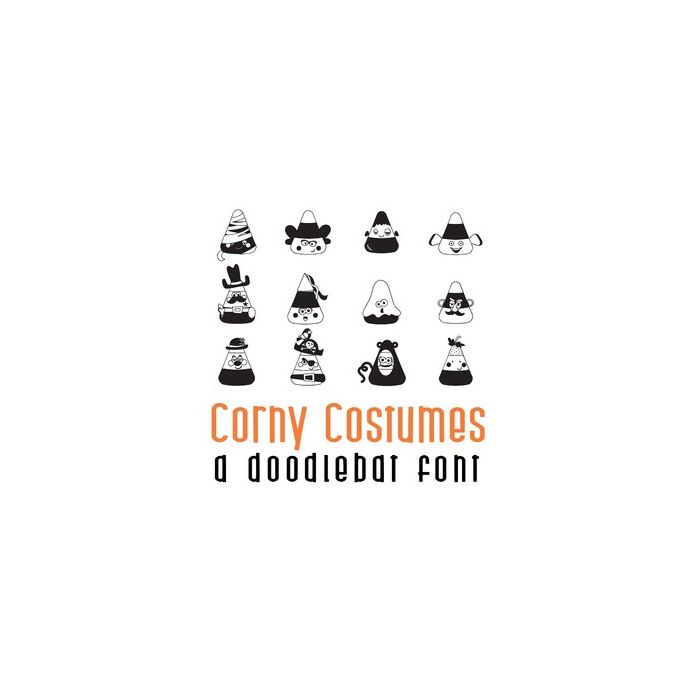
This fun doodle style doodlebat font features 26 fun candy corns dressed up for Halloween. Perfect for cards, crafts, gifts, decor, scrap book pages, planner stickers and more!